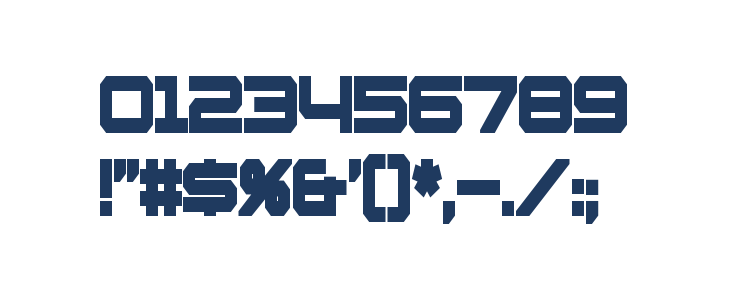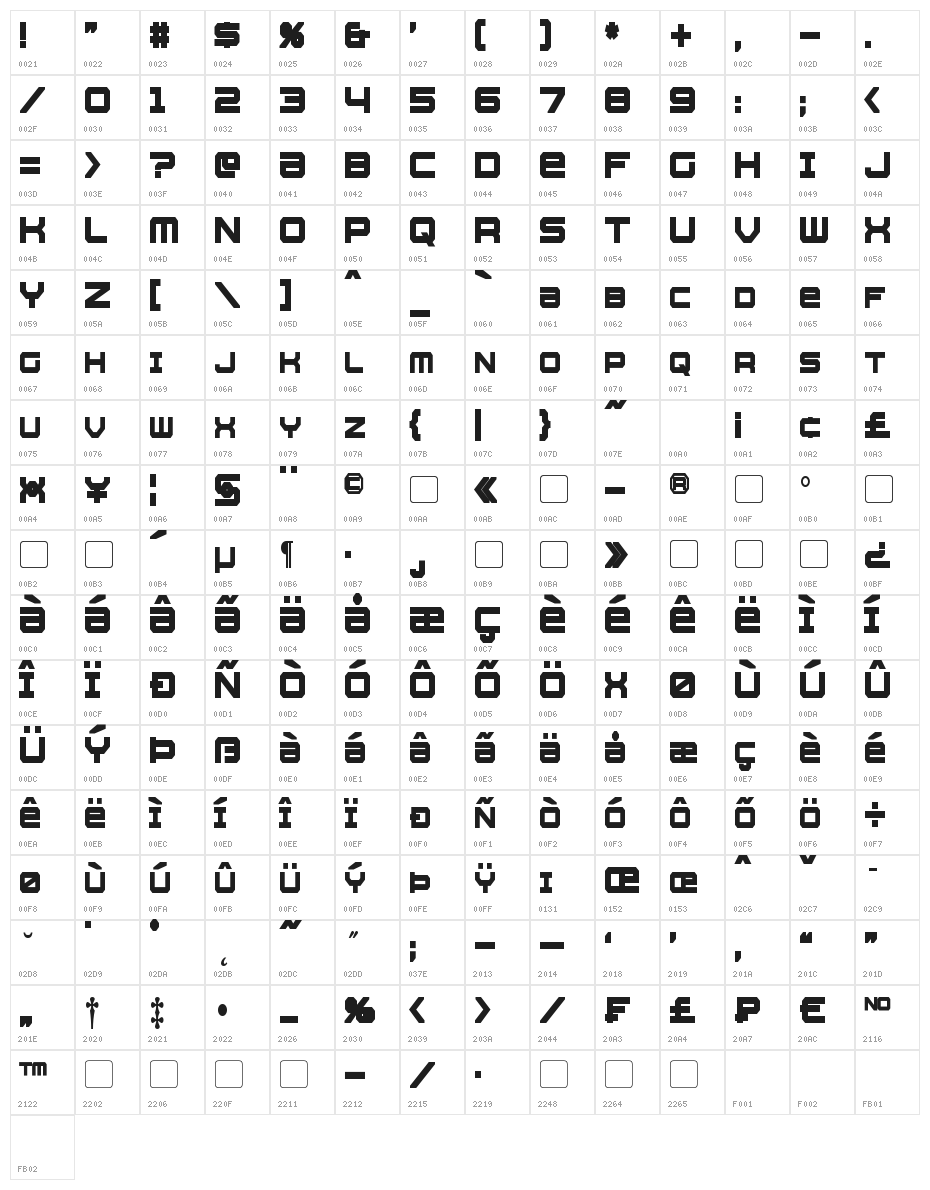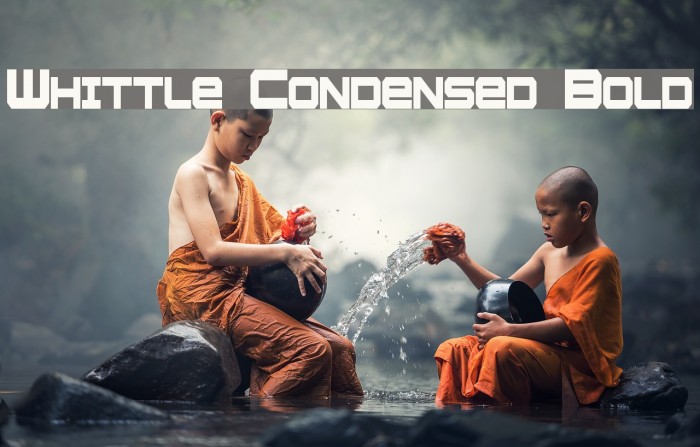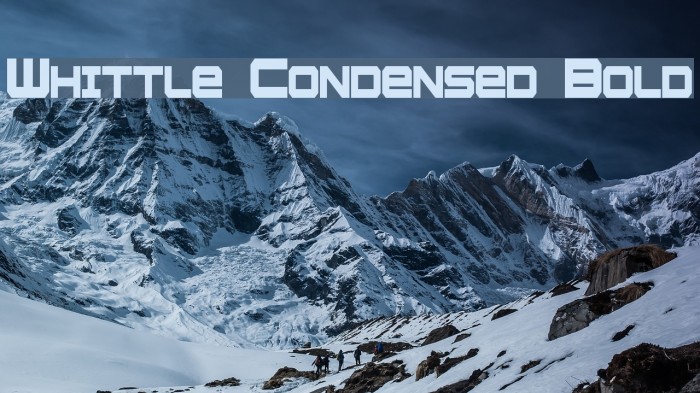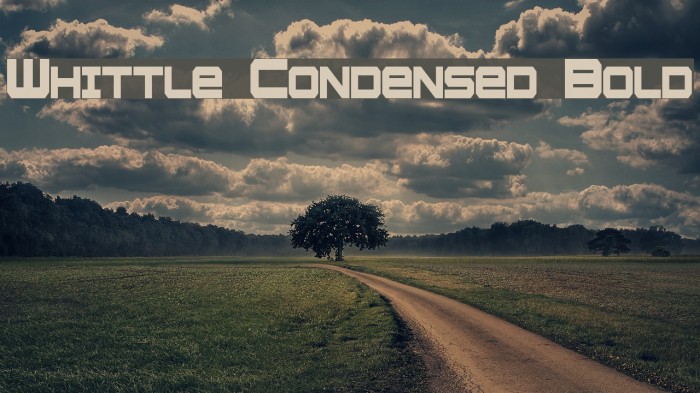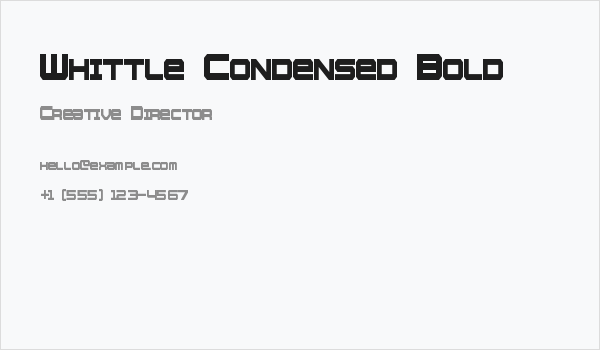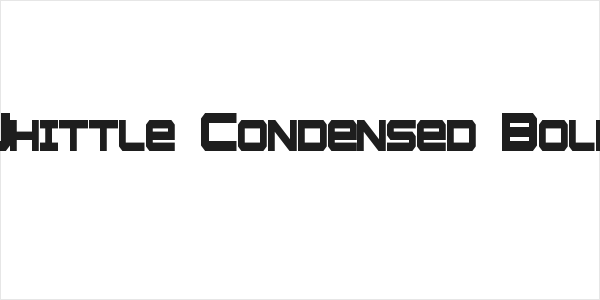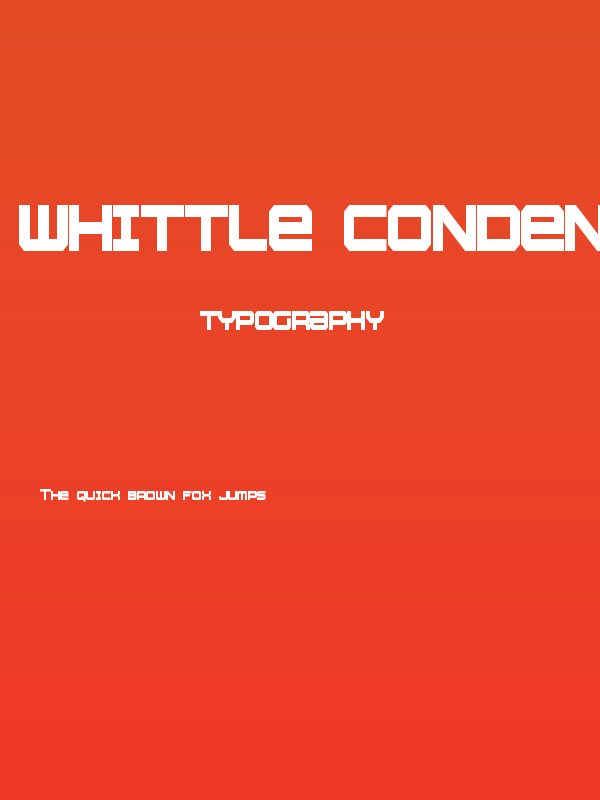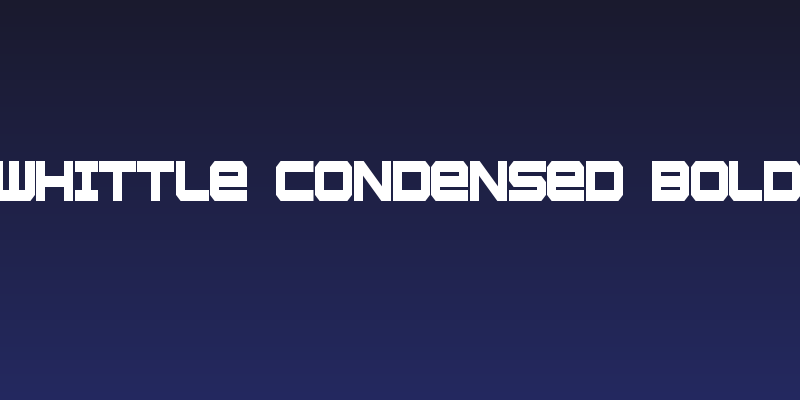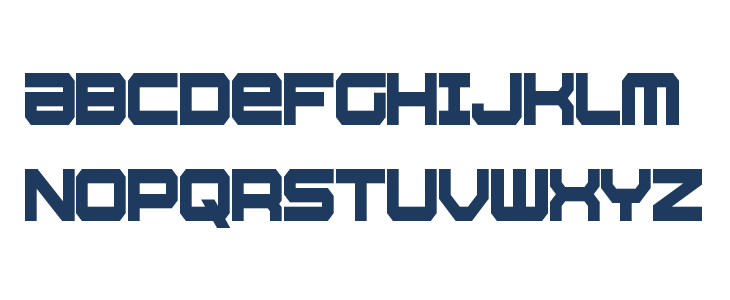
Whittle Condensed Bold Font
Whittle Condensed Bold Description
This font features a bold, geometric design with a condensed structure, making it highly impactful and visually striking. The characters are constructed with sharp, angular lines and a uniform thickness, giving them a modern and futuristic appearance. The uppercase and lowercase letters maintain a consistent style, enhancing readability while preserving a unique aesthetic. The numerals and special characters follow the same design principles, ensuring a cohesive look across all text elements. The font's boldness and condensed width make it ideal for attention-grabbing headlines and titles, where space is limited but impact is necessary. Its distinct style can add a contemporary edge to any design project.